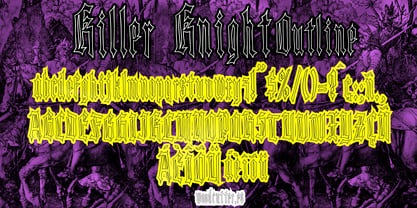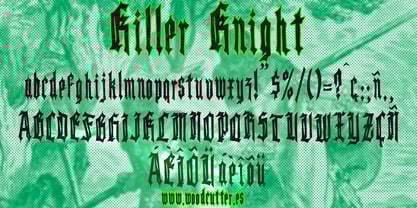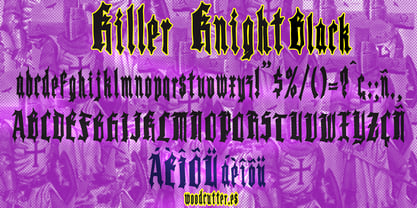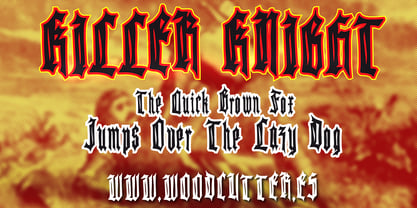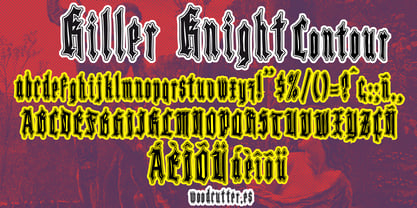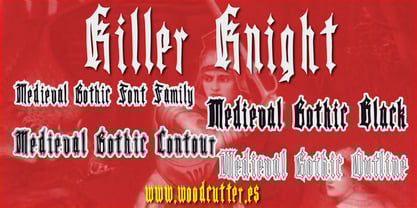
Killer Knight
by Woodcutter
The Killer Knight Font Family was designed by Jordi Manero and published by Woodcutter. Killer Knight contains 4 styles and family package options.
The "Killer Knight" typeface family is a set of uppercase and lowercase fonts with accents, inspired by a medieval Gothic aesthetic. Its sharp, imperfect letters evoke a sense of mystery, power, and antiquity, making it perfect for projects requiring a historical or fantasy look.
This family includes four distinct versions:
"Killer Knight", the main version, featuring a classic medieval Gothic design with sharp details and an irregular texture.
"Killer Knight Outline", a variant with only the letter contours, adding lightness and versatility to the design.
"Killer Knight Black", a thicker, bolder version that enhances its presence and dramatic impact.
"Killer Knight Contour", a combination of the solid version with an extra contour, providing a more robust and striking effect.
With its unique appearance, "Killer Knight" is ideal for powerful titles, covers, themed posters, and projects that seek to convey strength and a medieval atmosphere.